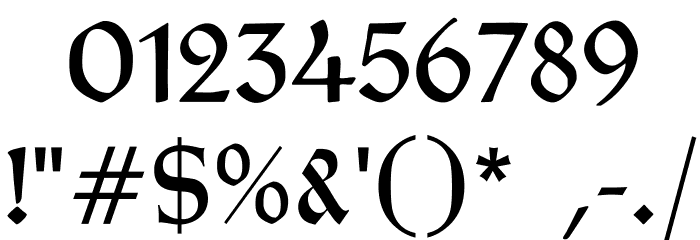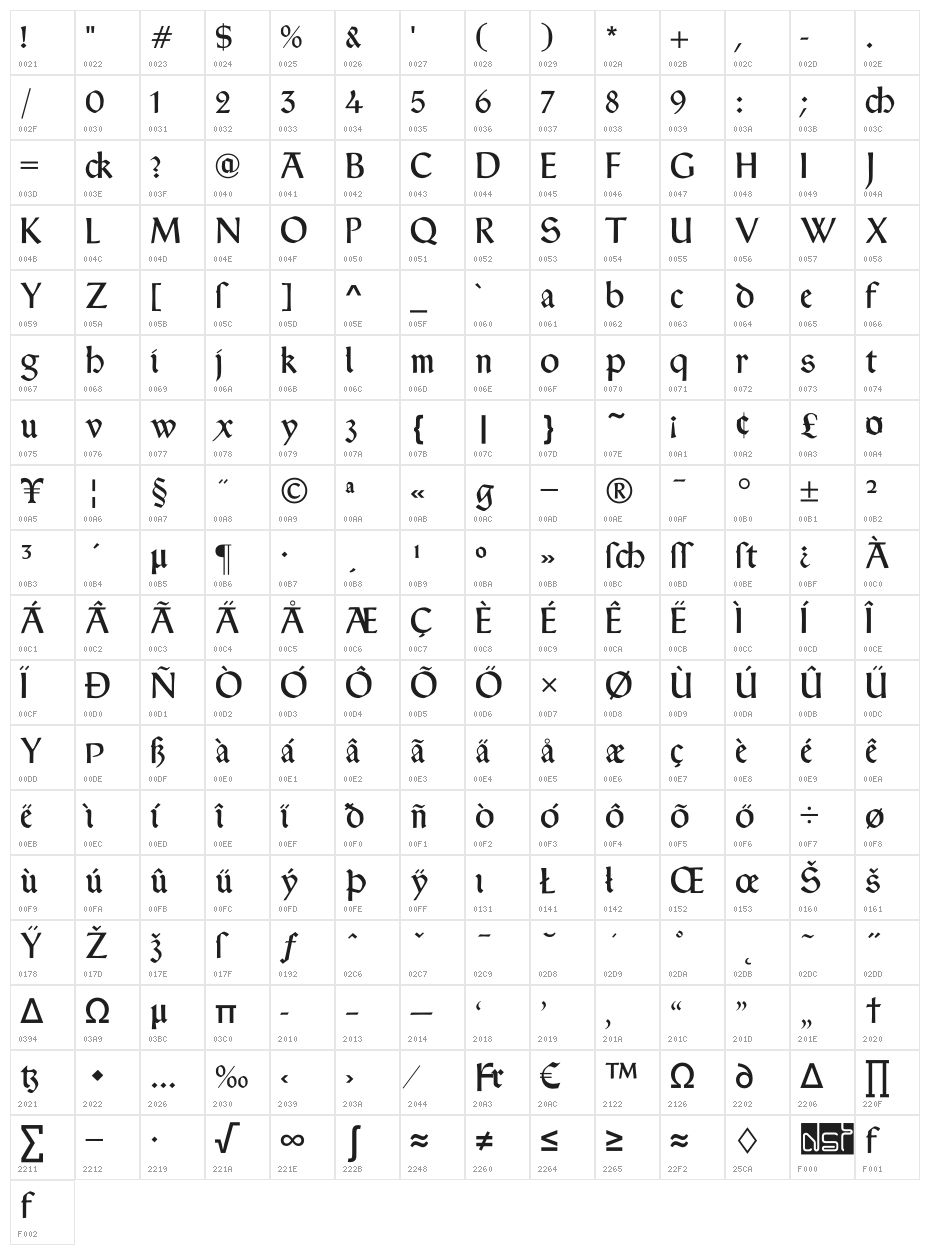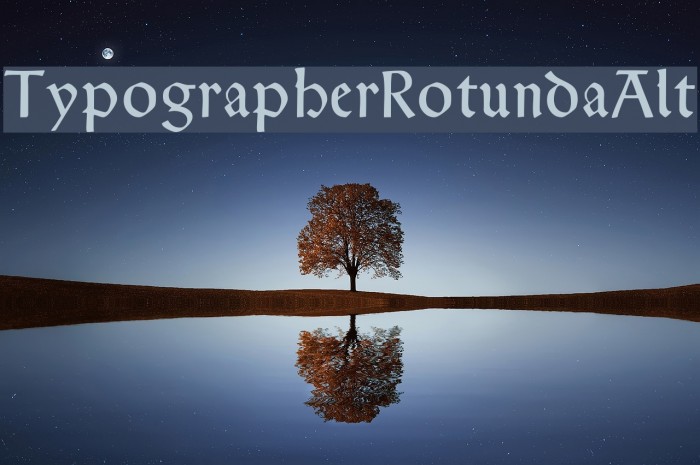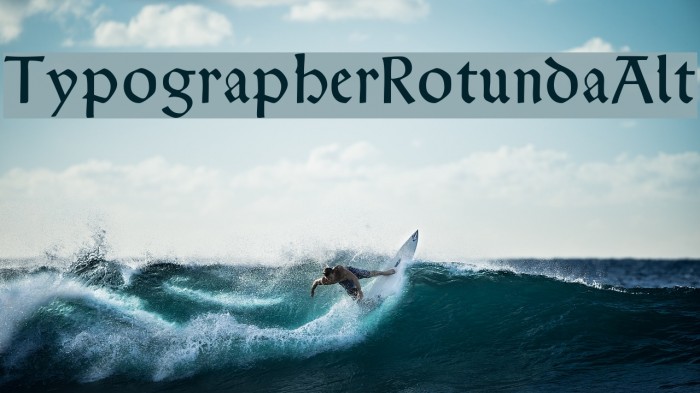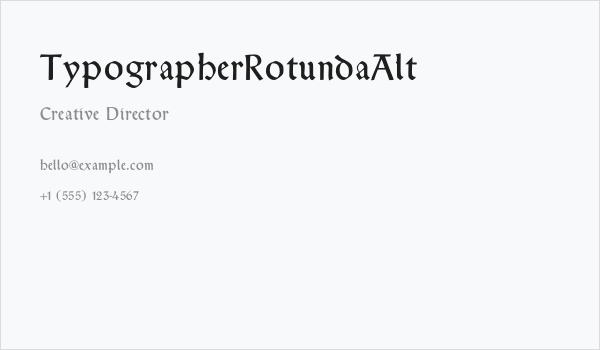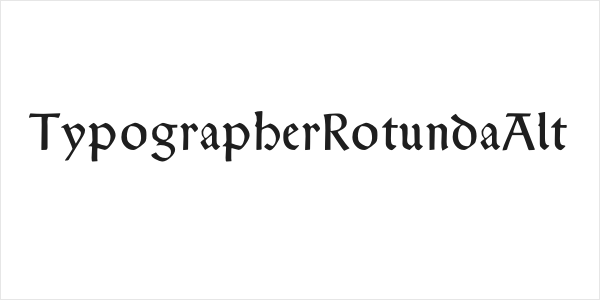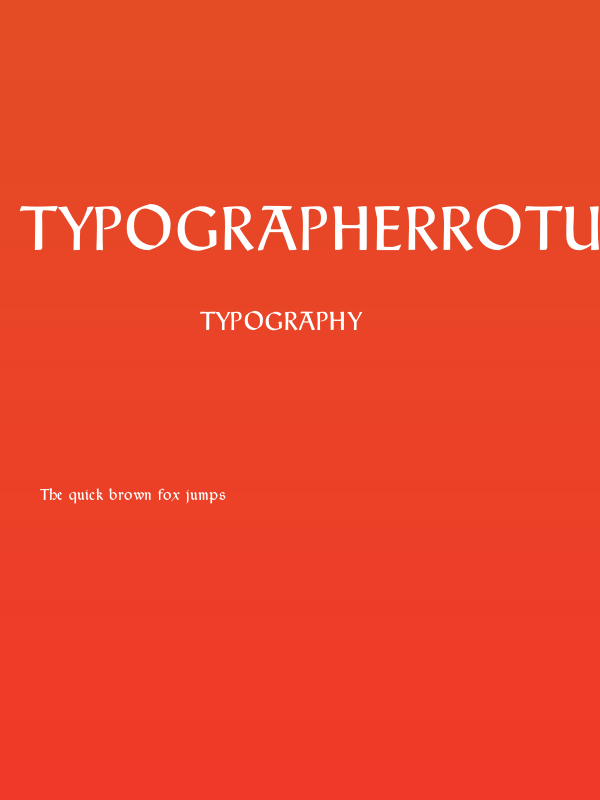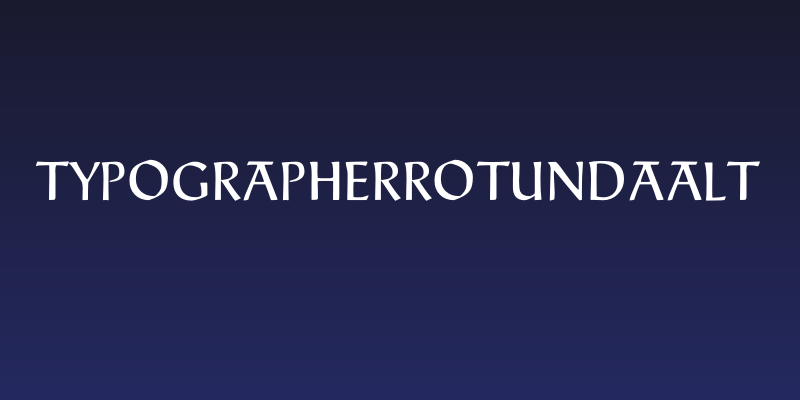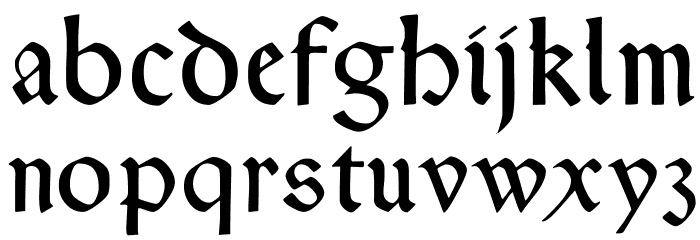
TypographerRotundaAlt Font
TypographerRotundaAlt Description
This font features a distinctive blend of traditional and modern elements, characterized by its sharp, angular serifs and bold strokes. The uppercase letters exhibit a strong presence with their pronounced vertical lines and subtle curves, while the lowercase letters maintain a consistent style with a slightly more rounded appearance. The numerals are clear and legible, matching the overall aesthetic of the alphabet. Special characters are designed with the same attention to detail, ensuring a cohesive look across all glyphs. The font's unique style makes it suitable for projects that require a touch of elegance and historical flair.
| Proposed Projects | Ideal for branding, editorial design, invitations, and historical-themed projects. |